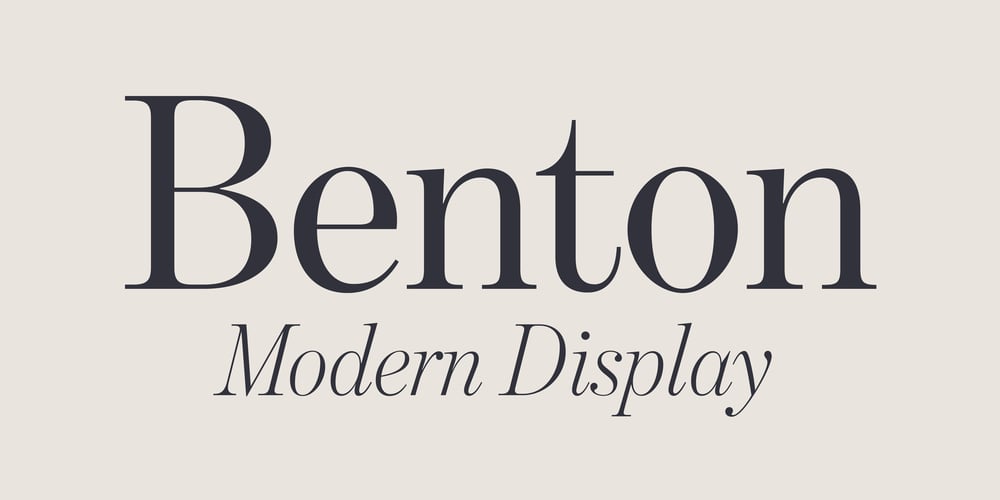
Benton Modern Font Family was designed by David Berlow and published by Font Bureau. Benton Modern contains 40 styles and family package options. Benton Modern was first prepared as a text face by Font Bureau for the Boston Globe and the Detroit Free Press. Design and proportions were taken from Morris Fuller Benton’s turn-of-the-century Century Expanded, drawn for ATF, faithfully reviving this epoch-making magazine and news text roman. The italic was based on Century Schoolbook. These display cuttings were prepared by Dyana Weissman and Richard Lipton; FB 2008